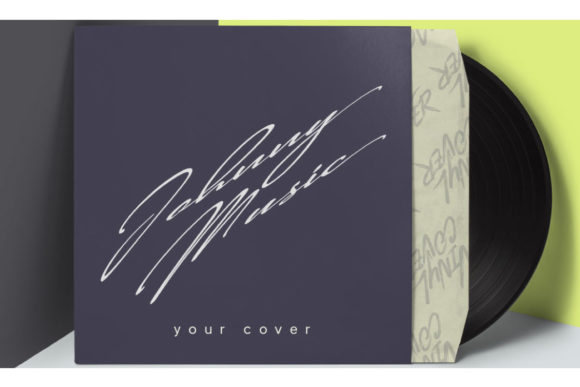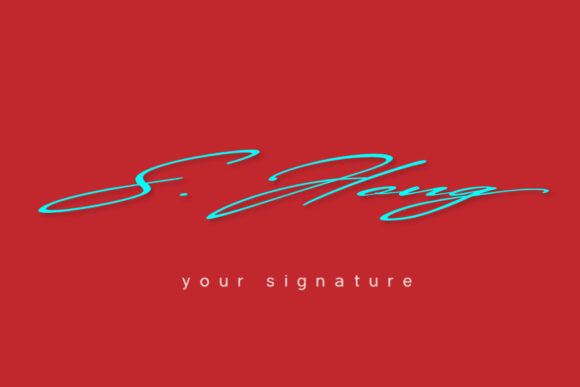
Introduction to Olean Font
Have you ever been stuck in a creative rut, scrolling through design resources, searching for that perfect font to elevate your project? It’s a feeling we’ve all been there, and it’s a moment that can make or break the success of our creative endeavors. For designers, finding the right font can be a game-changer, and that’s exactly what the Olean Font aims to provide.
This modern handwritten font is a breath of fresh air, perfect for adding a touch of personality to your headlines, posters, packaging, and advertising materials. With its high-quality design and PUA encoding, accessing all the glyphs and swashes is a breeze, making it an invaluable resource for designers.
Whether you’re working on a project with a transparent background or need a font that can add a touch of whimsy, the Olean Font is an excellent choice. And the best part? It’s available for free download, making it an accessible design resource for creatives of all levels.
Key Features of Olean Font
- Unique, elegant script font with a transparent background, ideal for adding a touch of sophistication.
- Designed to be used at a wide range of resolutions, from 72 dpi to 300 dpi, making it perfect for digital and print projects.
- Features a clean, cursive design with a modern twist, suitable for a variety of applications, including logos, invitations, and more.
Honest Review: Olean Font
As a designer, I’m always on the lookout for high-quality design resources that can elevate my creative projects. The Olean Font is one such resource that caught my attention. With its clean and modern aesthetic, this font is perfect for anyone looking to add a touch of sophistication to their designs.
What works well with the Olean Font is its versatility. ✨ It comes in a range of weights and styles, making it suitable for a variety of design applications, from logos and branding to editorial and digital content. The font’s transparent background also makes it easy to combine with other design elements, allowing for a seamless integration into any creative project.
Here are some of the key features that make the Olean Font stand out:
- High-quality design with a clean and modern aesthetic
- Range of weights and styles for versatility in design applications
However, there are a few limitations to keep in mind ⚠️. The font may not be suitable for very small text sizes, and the range of languages supported is limited. Nevertheless, these limitations do not detract from the overall quality of the font, and I would still highly recommend the Olean Font to designers looking for a reliable design resource.